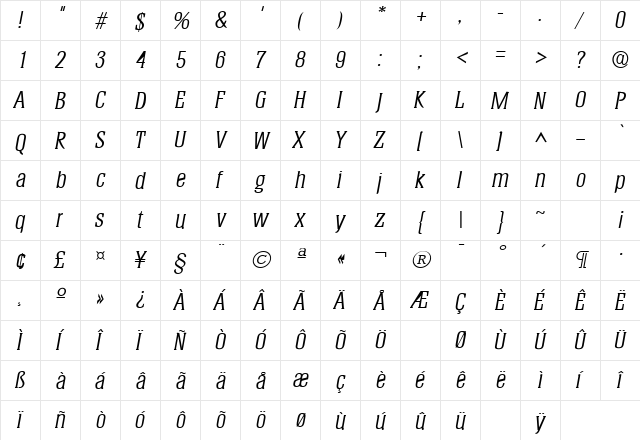
Helium Italic
Helium Italic Font Preview
Helium Italic
Helium Italic Font Details
Design Context for Helium Typeface
Helium takes a measured approach to typography — its balanced proportions and neutral character make it a reliable workhorse for both digital and print work. The dynamic lean of this cut emphasises speed and emphasis in any layout.
Pro Tip: Use Helium for emphasis, pull quotes, and subheadings where its slanted energy can add rhythm to the layout.